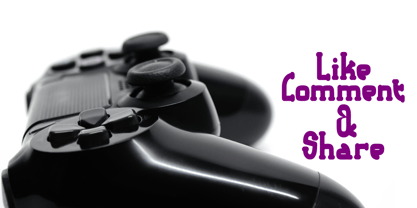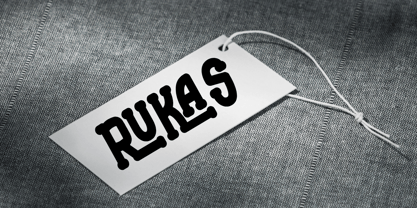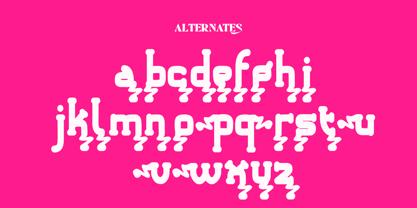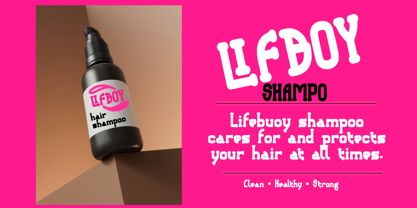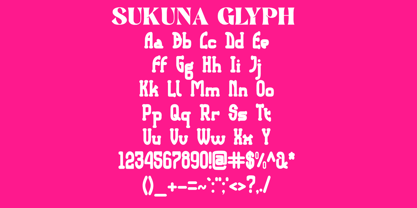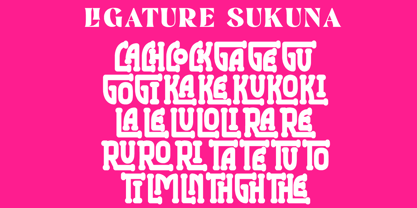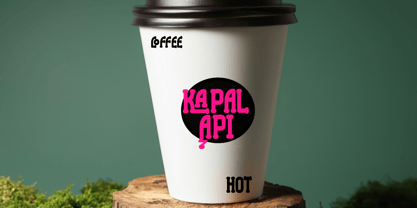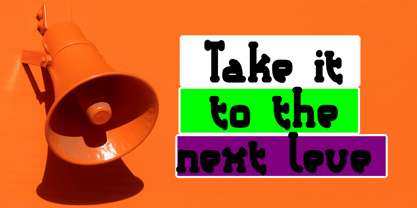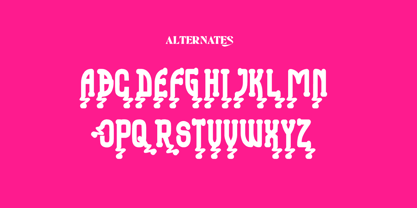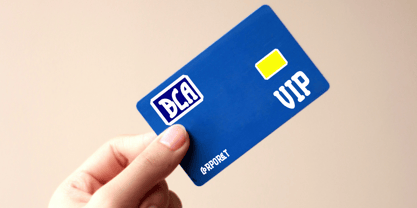
Sukuna
by Letternesia studio
The Sukuna Font Family was designed by Ta Siyo and published by Letternesia studio. Sukuna contains 2 styles and family package options. More about this family
SUKUNA is a bold display serif font that combines classic elegance with a strong modern character. Designed with sharp details, stylish curves, and powerful letterforms, this font is perfect for branding, headlines, logos, posters, packaging, editorial designs, and luxury typography projects.
SUKUNA delivers a premium and artistic feel while maintaining strong readability. Its unique serif style creates a dramatic visual impact that stands out in both modern and vintage-inspired designs.